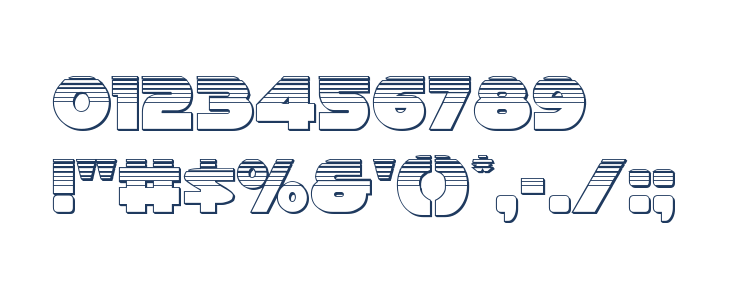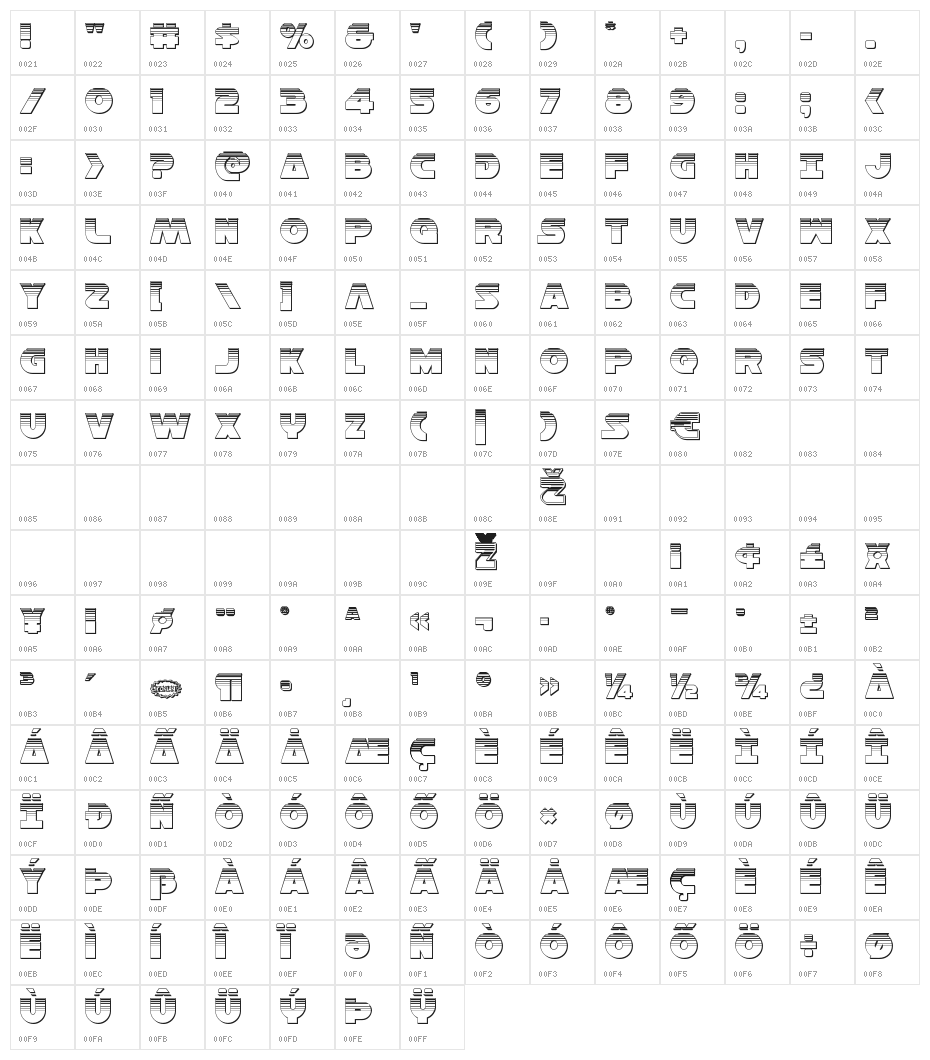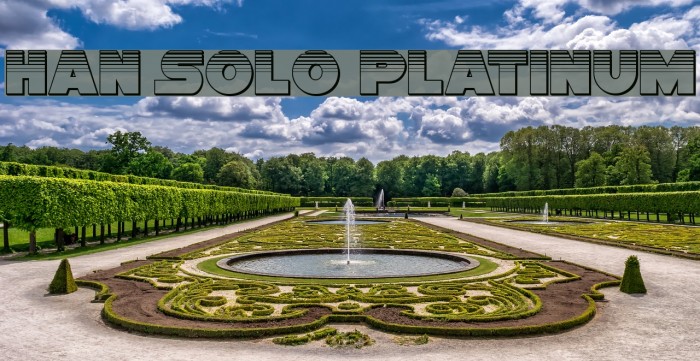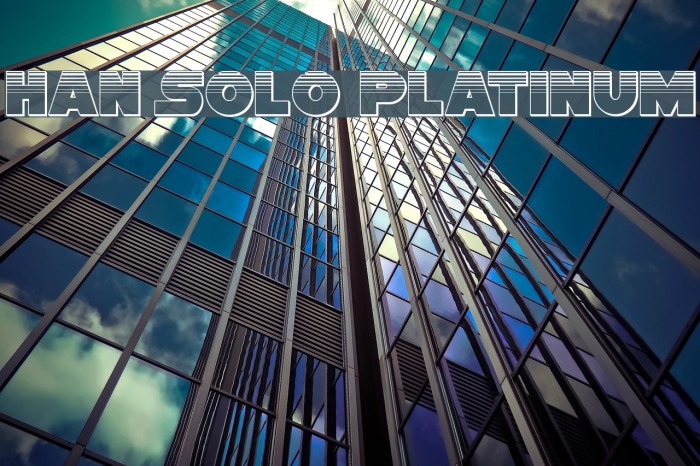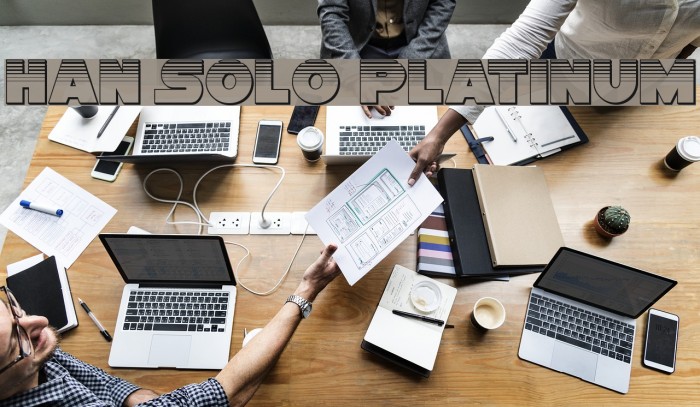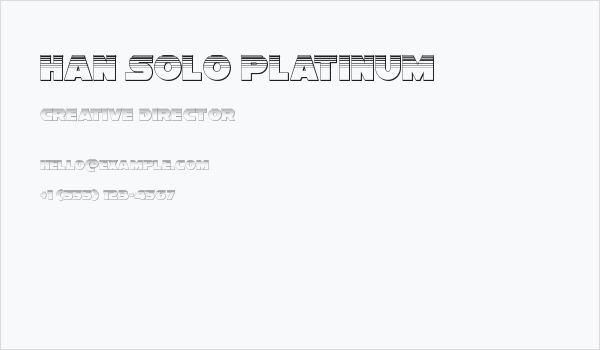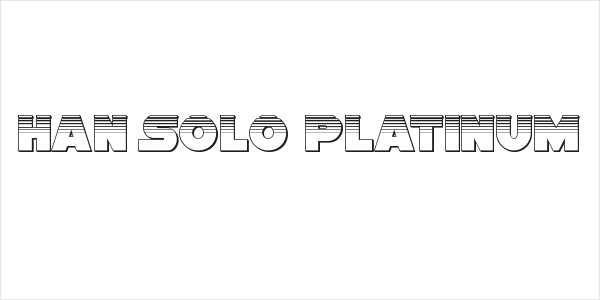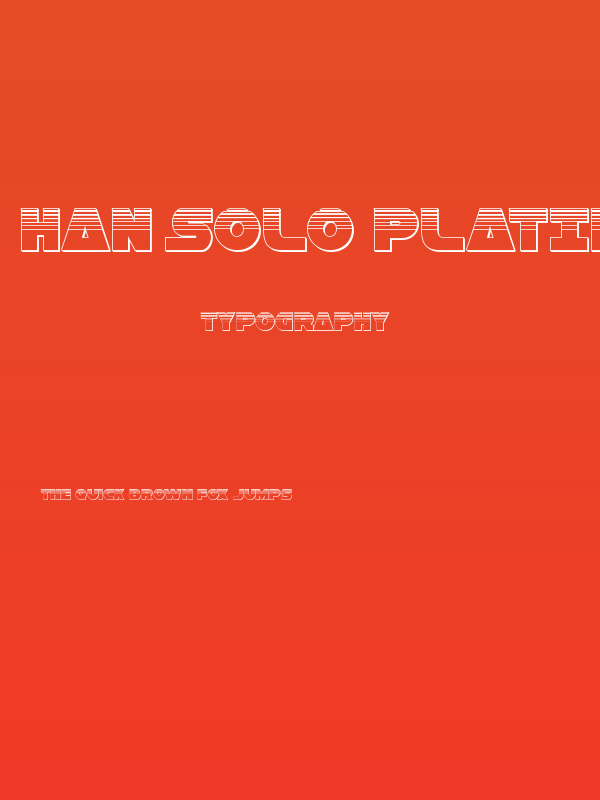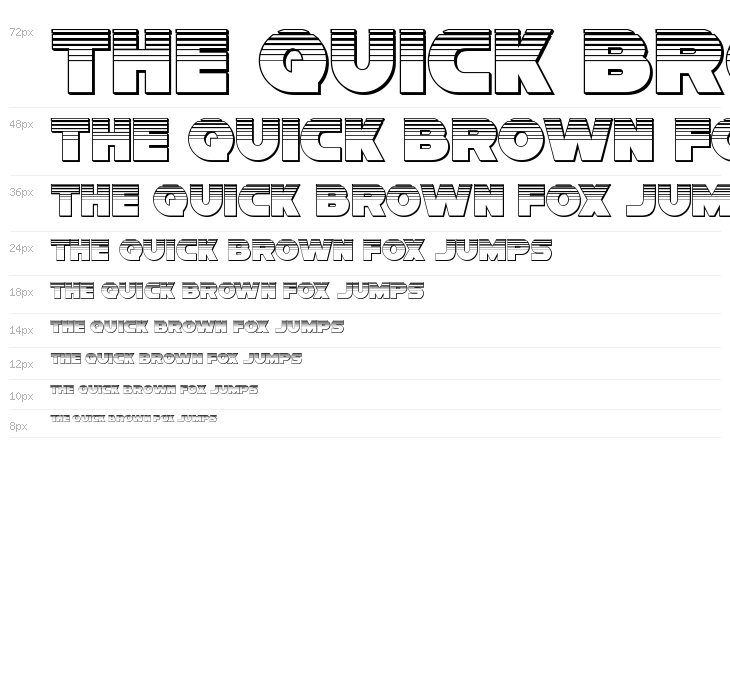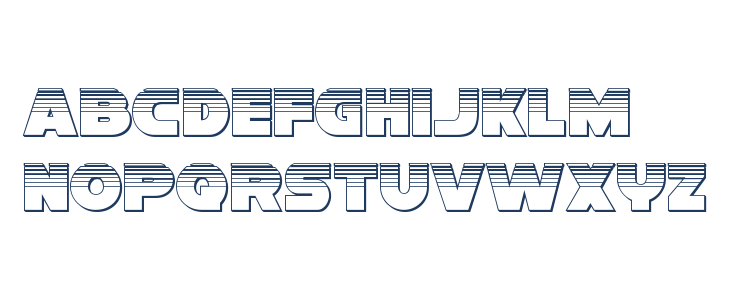
Han Solo Platinum Font
Han Solo Platinum Description
This font features a bold, futuristic design with a distinct geometric structure. Each character is outlined with multiple horizontal lines, creating a layered effect that adds depth and dimension. The uppercase letters are uniform in height, while the lowercase letters maintain a consistent style, enhancing readability. The numbers and special characters follow the same design principles, ensuring a cohesive look across all elements. This font's unique style makes it stand out, offering a modern and dynamic aesthetic suitable for various creative applications.
| Overall Style | Futuristic, Modern |
| Proposed Projects | Ideal for sci-fi themed projects, video game titles, posters, and branding that requires a modern, edgy look. |